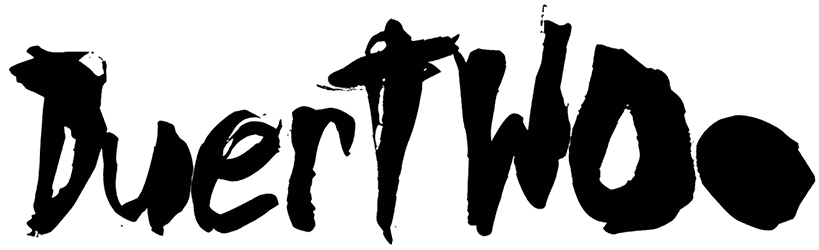
If you believe that conveying a sense of fear, dread, and excitement would work in impressing the audience, we offer you a horror font such as Panic Room. Although it doesn’t support lowercase letters and punctuation, it would be fabulous on movie posters, video game banners, book covers, and more.